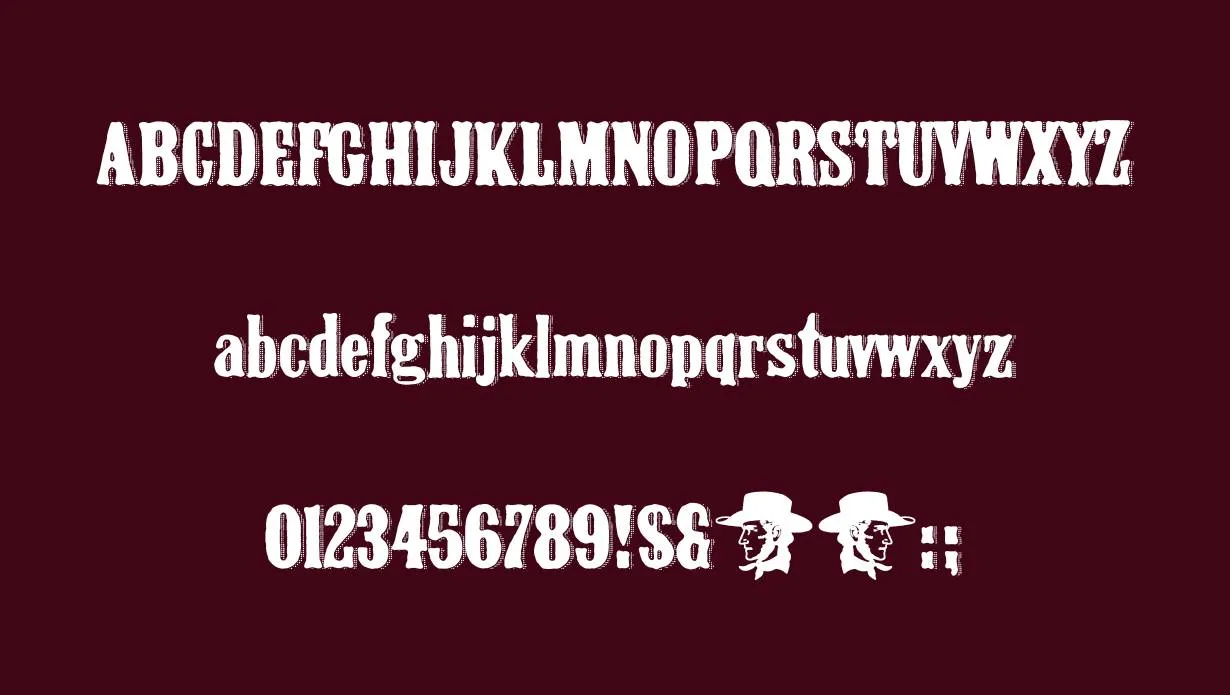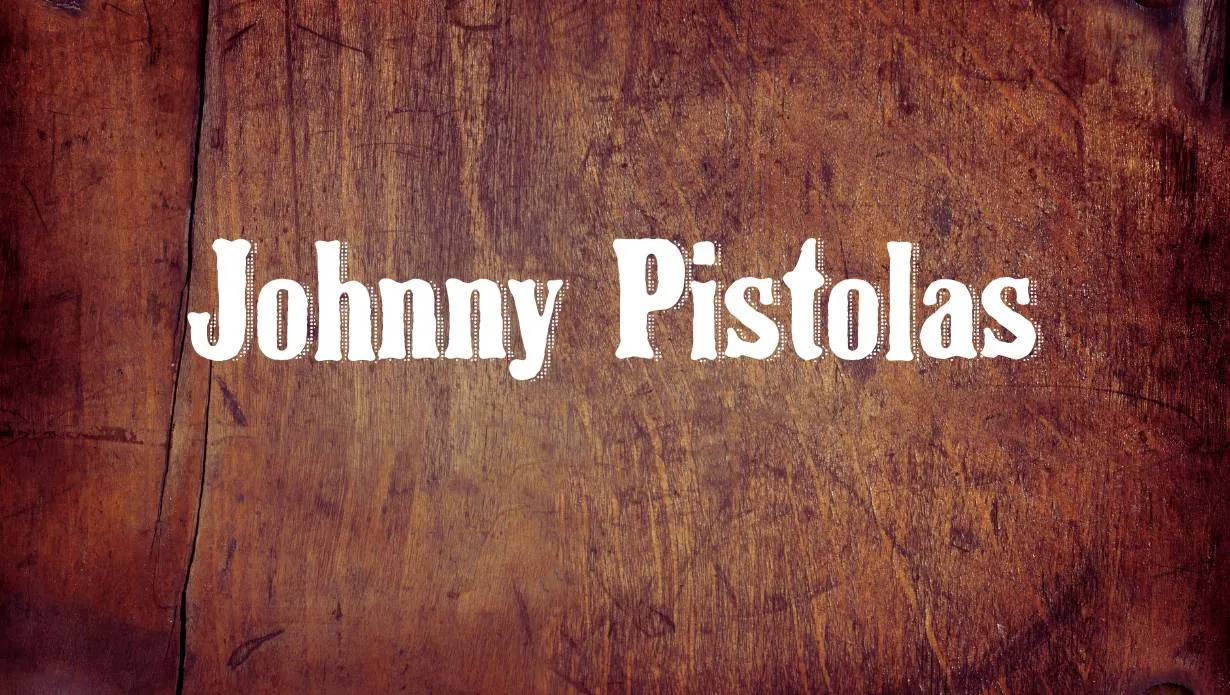
About Johnny Pistolas Font
Johnny Pistolas is a decorative western‑style display typeface with bold, rugged letterforms inspired by classic cowboy and frontier aesthetics. Its distinctive character shapes and vintage flair make it ideal for posters, logos, packaging, and themed design projects that call for a strong, expressive visual impact. The font’s ornamental details evoke the spirit of the Old West while maintaining readability across display sizes. Johnny Pistolas works well in both digital and print applications, adding personality to creative and branding compositions.